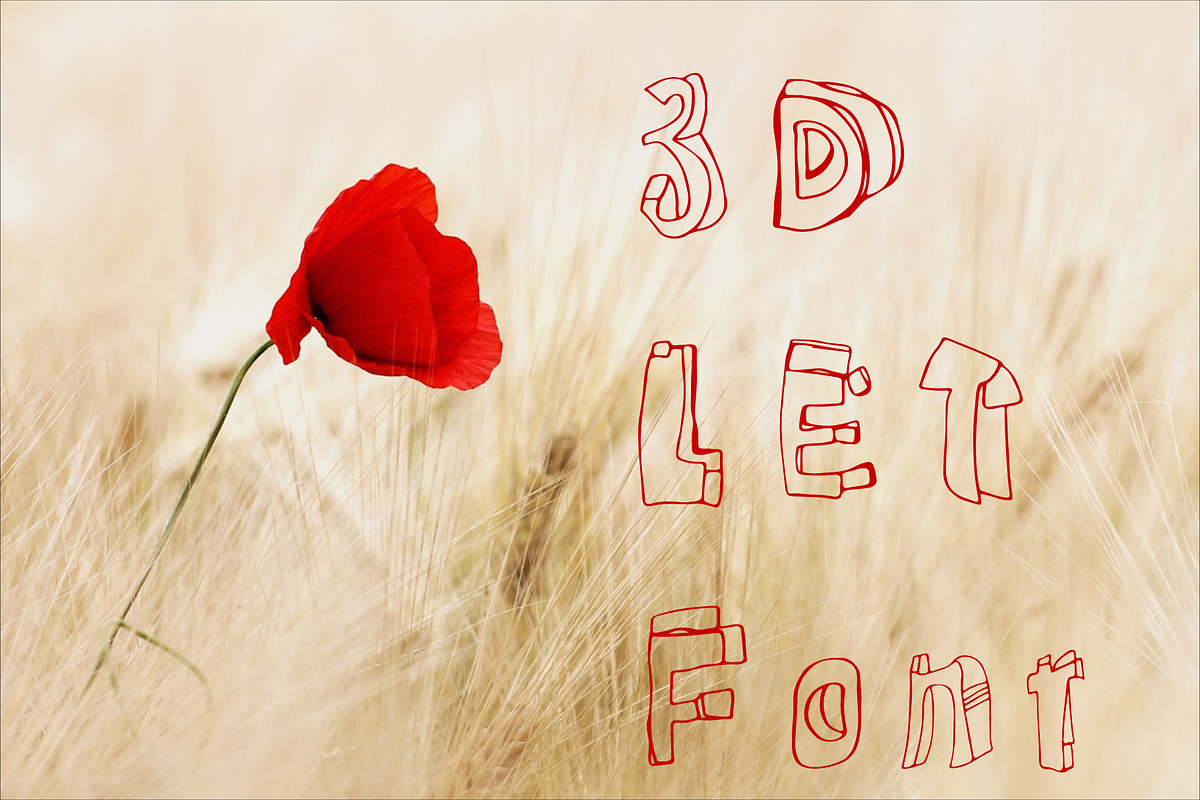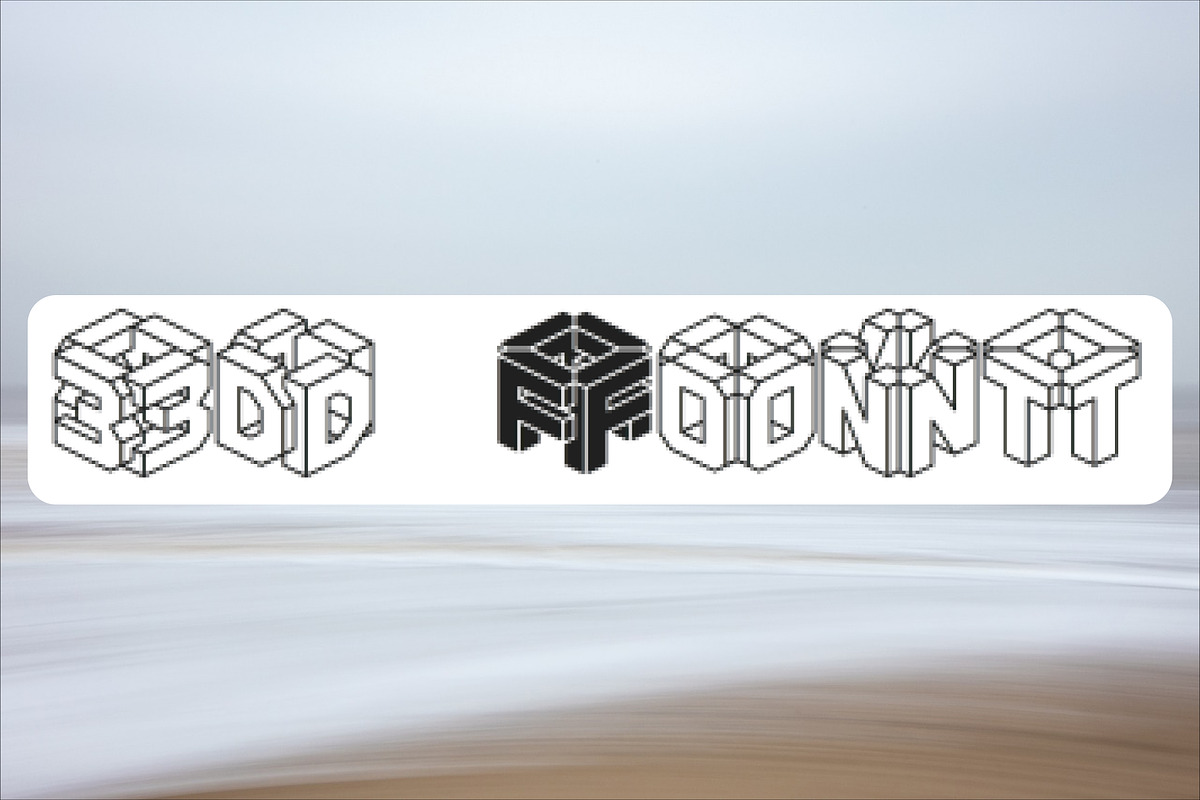
Transform Your Designs 3D Typography
Enhance your creative projects with the "Modern Font 3D LET BRK" - a cutting-edge 3D font that brings any design a sleek, contemporary look. Perfect for digital artwork, logos, posters, and more, this font combines modern aesthetics with the dimensionality of 3D typography.
Its bold, clean lines and innovative style make it an excellent choice for designers looking to make a statement. Whether creating eye-catching graphics or professional branding materials, "Modern Font 3D LET BRK" provides the versatility and impact you need to stand out.